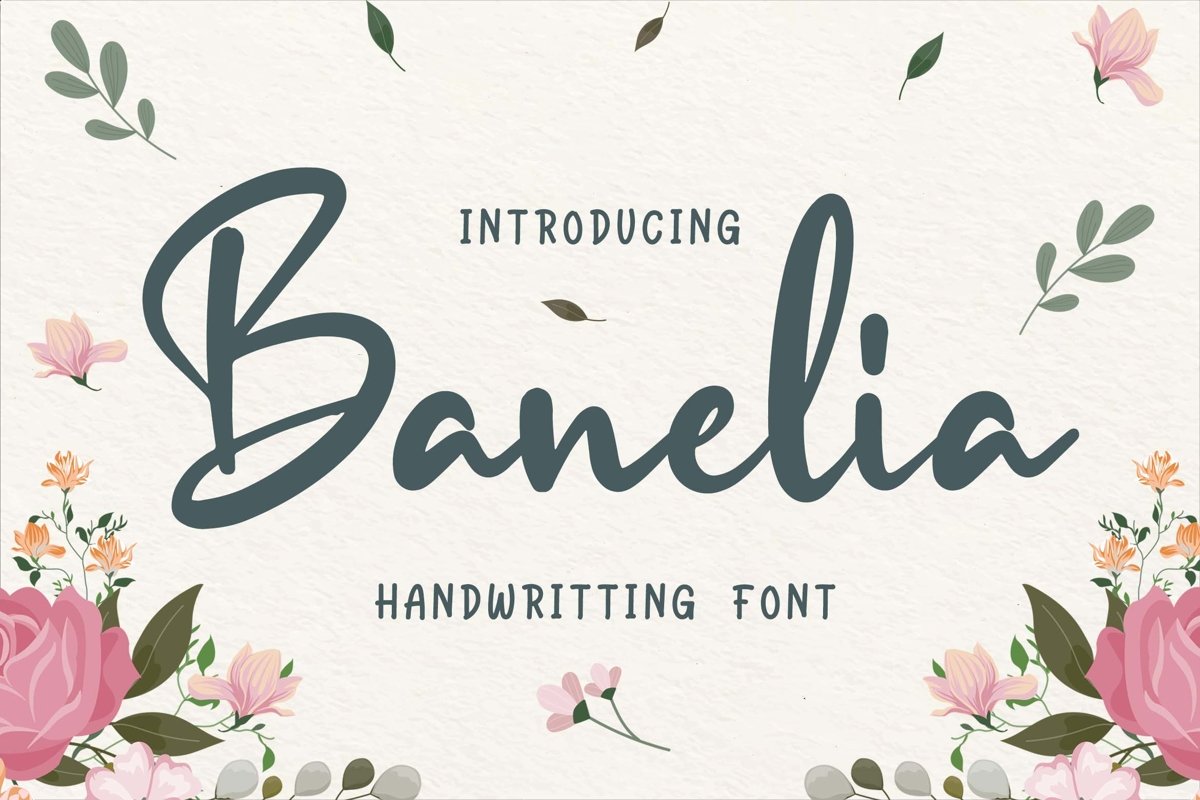
Banelia Handwritting Font
Introducing of our new product the name is Banelia Handwritting Font. Banelia inspired by modern calligraphy style this font is a fun theme very good for display, craft, wedding, valentine theme, logotype and etc